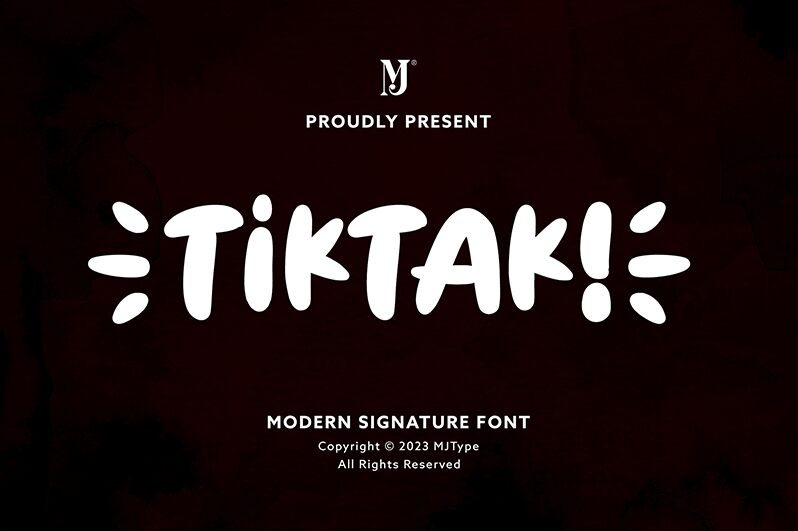
TIKTAK
TIKTAK, the bold and vibrant display font by MJType, is a delightful addition to any creative project. Perfect for children's books, playful logos, and eye-catching posters, this cartoon-inspired typeface adds a touch of whimsy to your designs. Its bold weight ensures that your message stands out with confidence while capturing the essence of fun and imagination. Whether you're designing for an animated film or creating a captivating website banner, TIKTAK is the ideal choice for projects that crave a dash of creativity and charm.